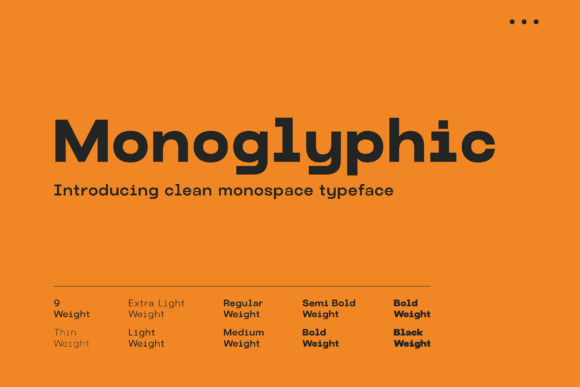
Introducing Monoglyphic, the epitome of clarity in a world of design chaos! Crafted with meticulous attention to detail, this sans serif typeface from HipFonts is the best font for editorial design. It offers a clean and consistent look that is perfect for both design aficionados and minimalist enthusiasts.
Monoglyphic stands out with its unique monospace style, where every character is perfectly aligned, creating a visually pleasing and harmonious display. This attention to detail ensures that your content is not only readable, but also aesthetically pleasing to the eye.
Whether you are coding a new website, designing a technical document, or creating a modern piece of digital art, Monoglyphic guarantees precision and elegance in every stroke. Its versatility allows it to seamlessly adapt to various design projects, making it a must-have for any creative individual.
One of the key features of Monoglyphic is its ability to simplify and streamline your design process. With this font, you can effortlessly create a sense of order and organization in your projects, enhancing clarity and readability. Say goodbye to design clutter and hello to a sleek and professional look.
Monoglyphic is not just a font, it's a statement. It exudes a sense of sophistication and modernity, making it the perfect choice for those who want to make a lasting impression. Whether you are a professional designer or a creative hobbyist, this font will elevate your work to new heights.
With Monoglyphic, you can unlock your creative potential and let your imagination soar. Its captivating style and attention to detail will inspire you to create stunning designs that leave a lasting impact. Stand out from the crowd and make your mark with this exceptional font.
In conclusion, Monoglyphic is the ultimate font for those seeking clarity, simplicity, and elegance. It offers a clean and consistent look that is perfect for various design projects. Streamline your work, enhance readability, and make a statement with this remarkable font. Elevate your designs with Monoglyphic today!